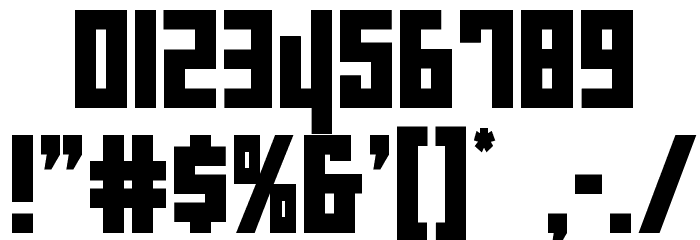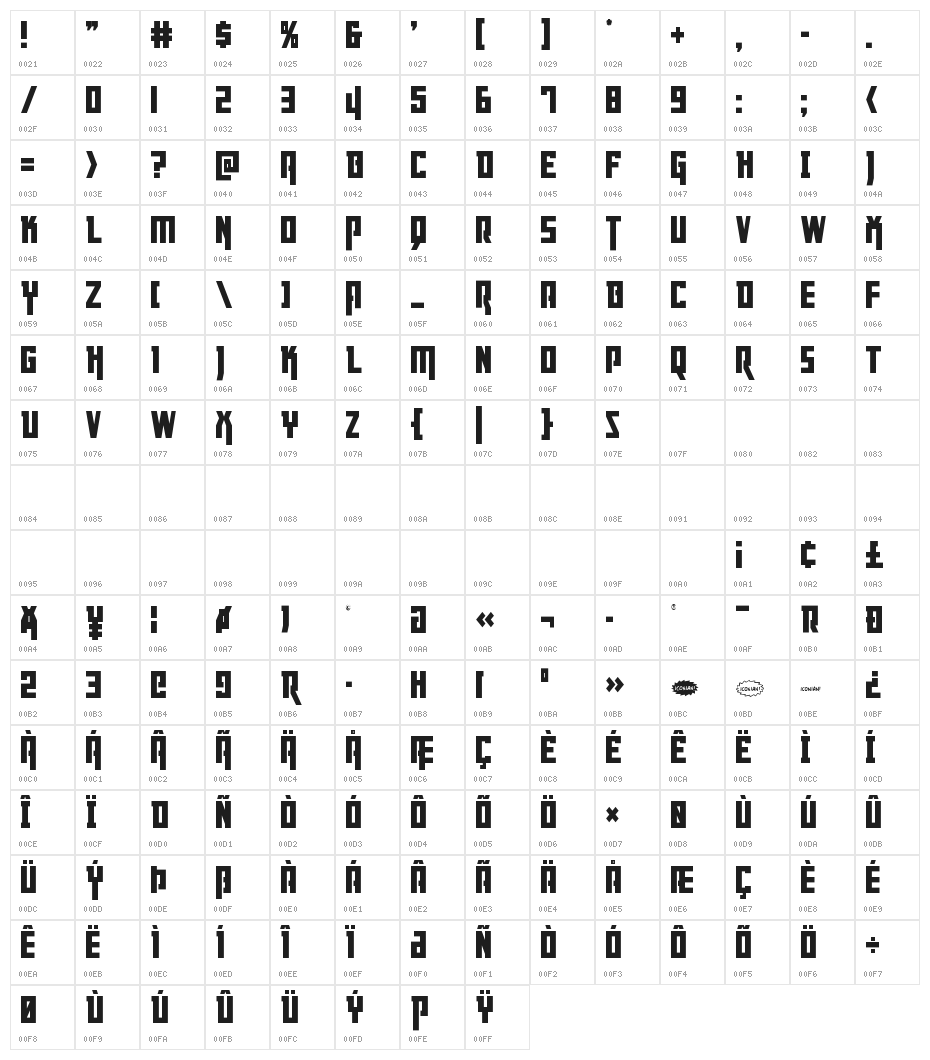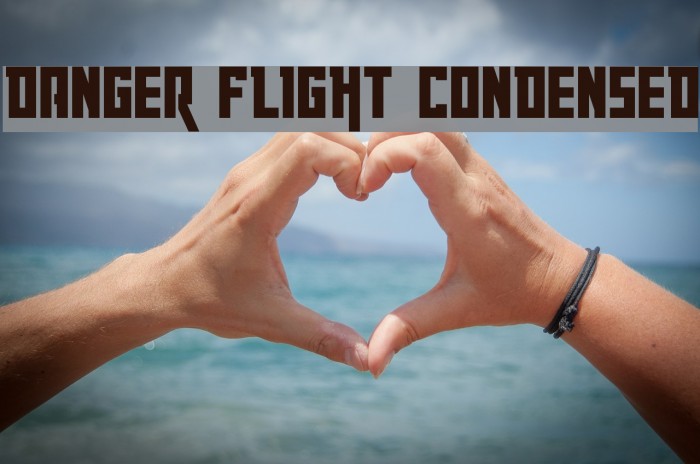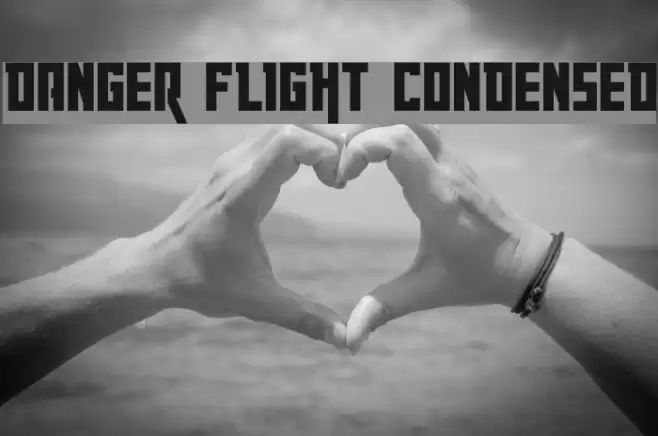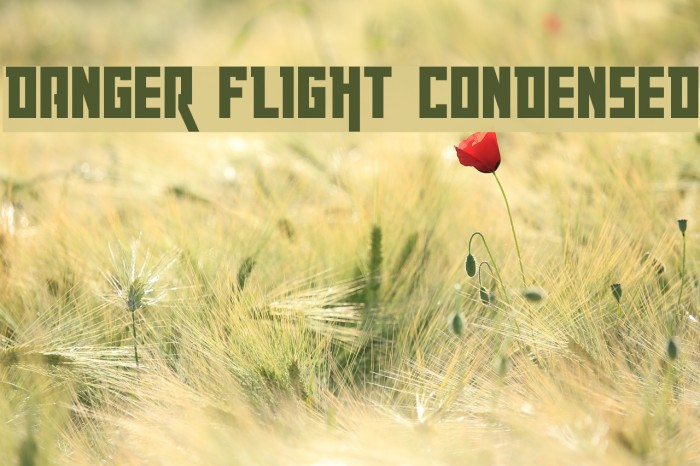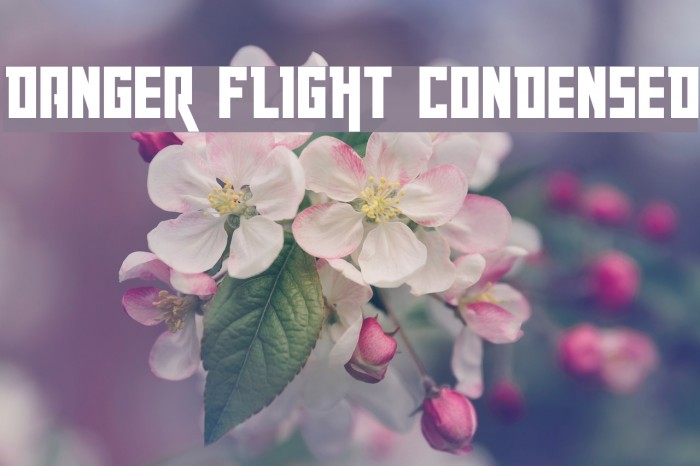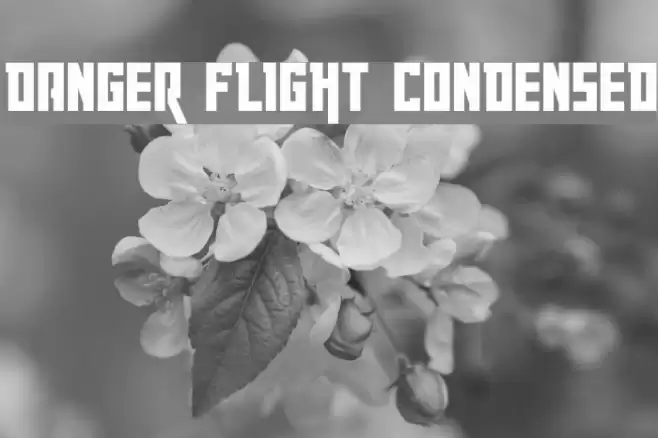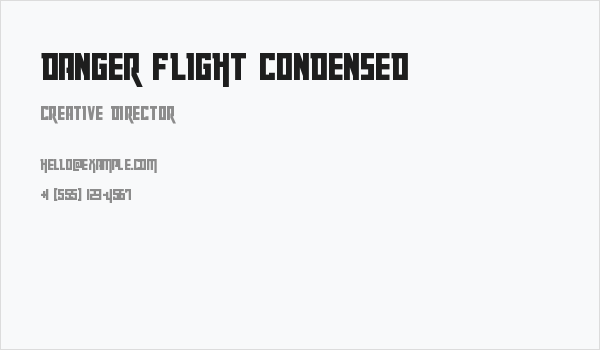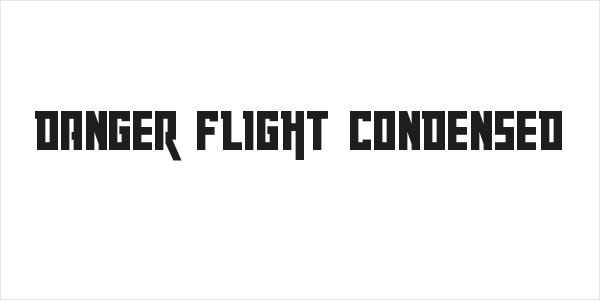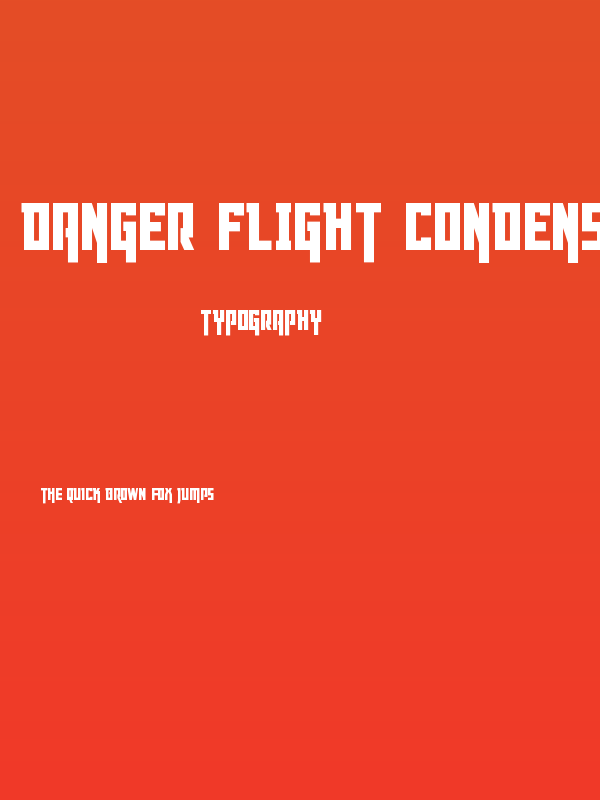
Danger Flight Condensed Font
Danger Flight Condensed Description
This font features a bold and impactful design with a condensed structure, making it ideal for attention-grabbing headlines and titles. The characters are blocky and geometric, with sharp angles and a uniform stroke width that conveys strength and modernity. The uppercase and lowercase letters maintain a consistent style, while the numerals and special characters complement the overall aesthetic. The font's condensed width allows for efficient use of space, making it suitable for projects where space is limited but impact is essential.
| Proposed Projects | Ideal for posters, logos, branding, and editorial headlines where a strong visual impact is needed. |